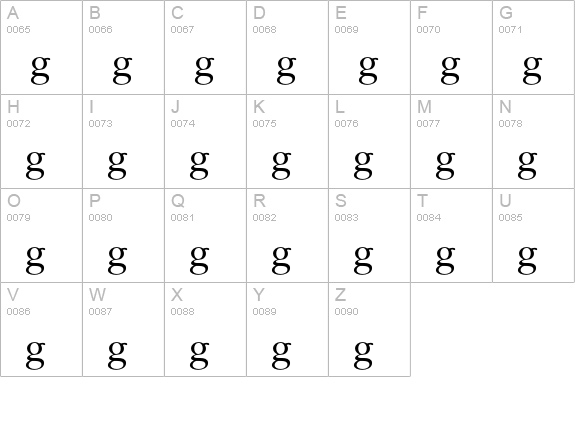
Religion-Order Font Details
Religion-Order font is a captivating typeface that exudes elegance and spirituality. With its intricate and carefully crafted design, this font effortlessly captures the essence of religious traditions and brings them to life on the page. The Religion-Order font embodies a sense of divine order and harmony, making it the perfect choice for any project that seeks to convey a sense of reverence and serenity. Each letter is meticulously formed, with graceful curves and sharp edges that create a captivating visual experience. What sets this font apart is its versatility and adaptability. Whether you are designing a religious publication, creating a logo for a spiritual organization, or simply adding a touch of spirituality to your personal designs, Religion-Order font is sure to make a lasting impression. But what truly makes this font stand out is the fact that it is freely available to download at FontsMarket.com. This means that you can unleash your creativity without any restrictions or limitations. The Religion-Order font empowers you to express your ideas and beliefs freely, allowing you to create stunning designs that resonate with your audience. With its wide range of characters and symbols, Religion-Order font offers endless possibilities for customization. Whether you need a bold headline or a delicate script, this font has you covered. Its clean lines and balanced proportions make it easy to read, ensuring that your message is delivered with clarity and impact. So why wait? Download the Religion-Order font today from FontsMarket.com and embark on a spiritual journey of creative expression. Whether you are a professional designer or an aspiring artist, this font will inspire you to create beautiful and meaningful designs that leave a lasting impression. Unleash your creativity and let the Religion-Order font guide you on a path of artistic discovery.